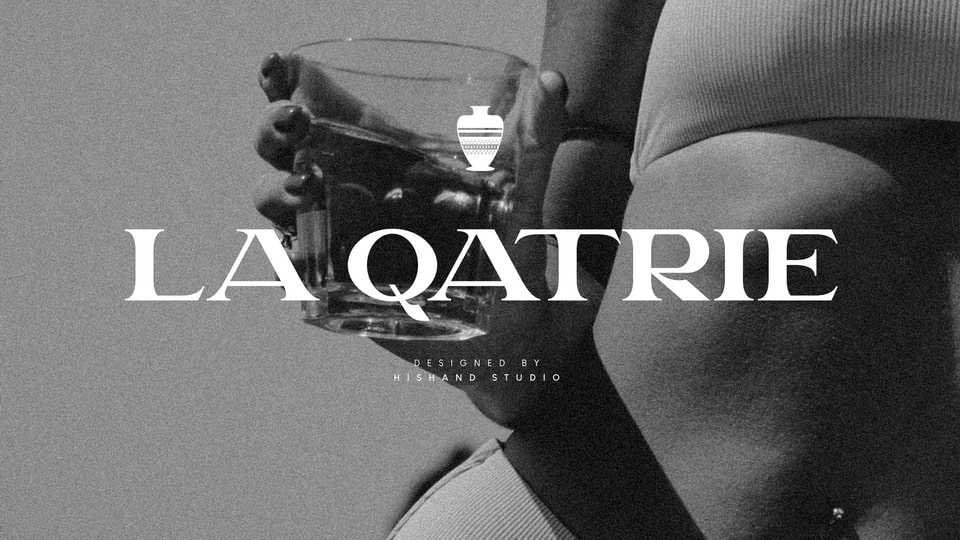
Download La Qatrie font, a display typeface that boasts an elegant look and a touch of luxury, setting a new standard for sophistication in typography.